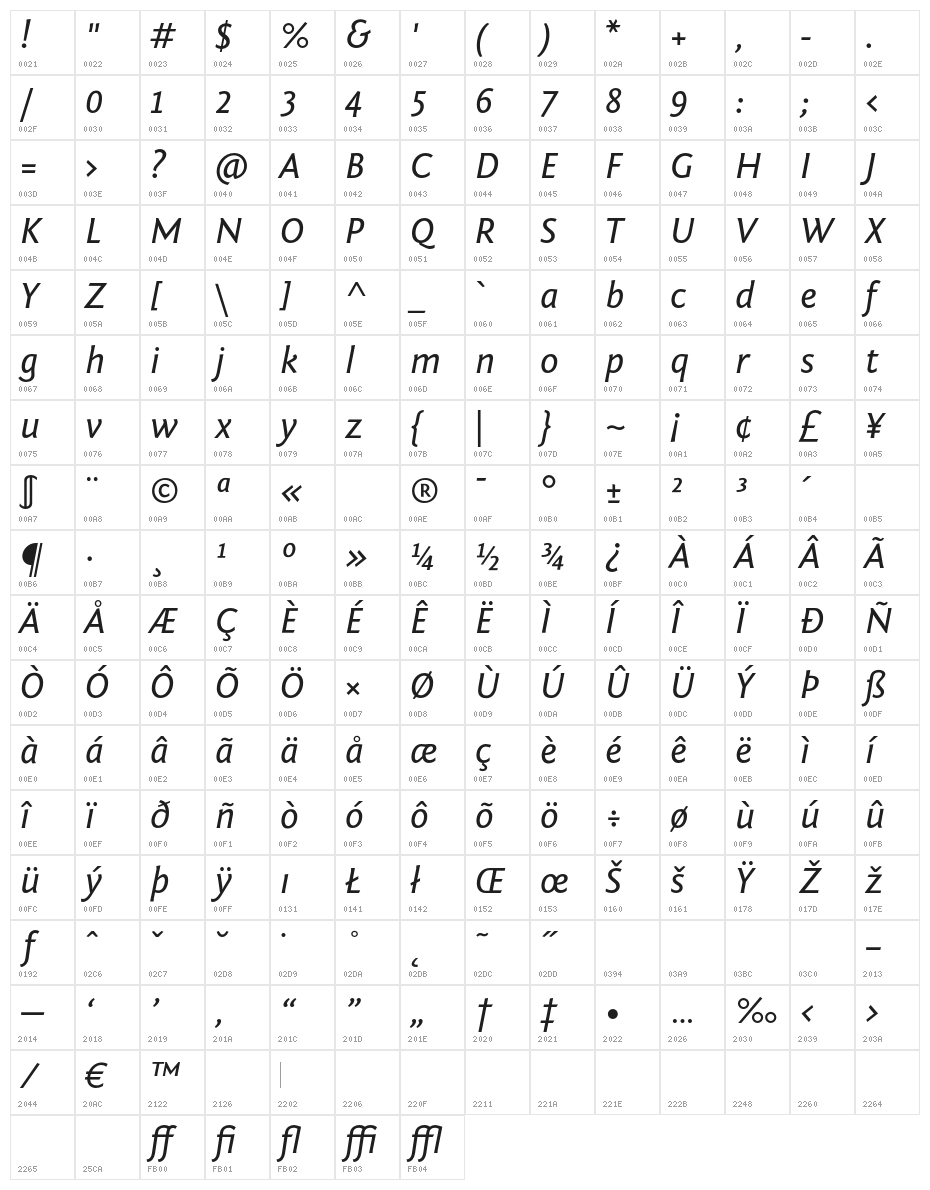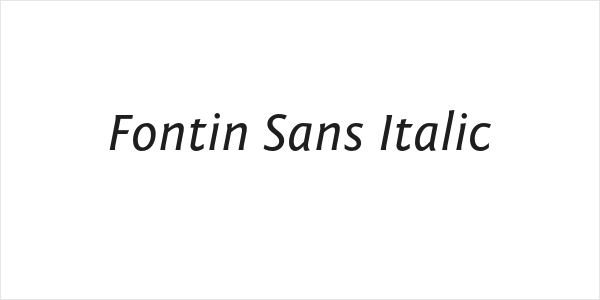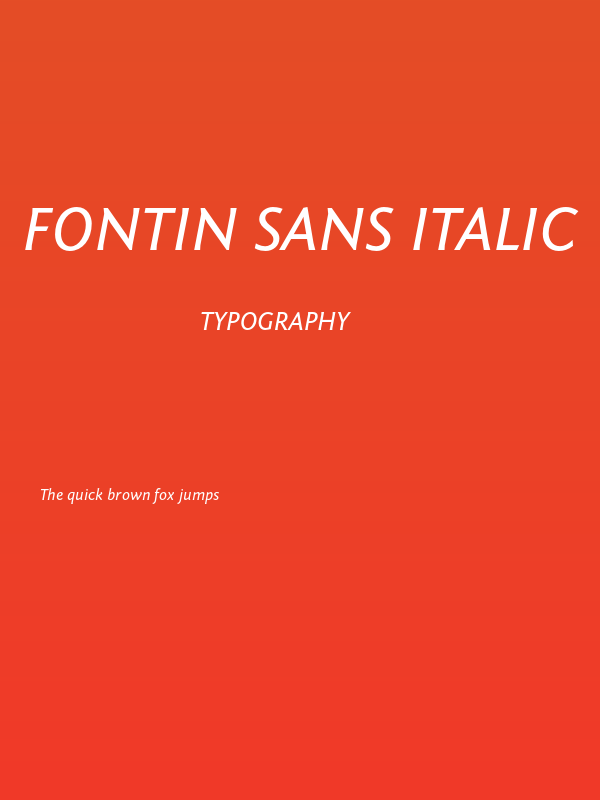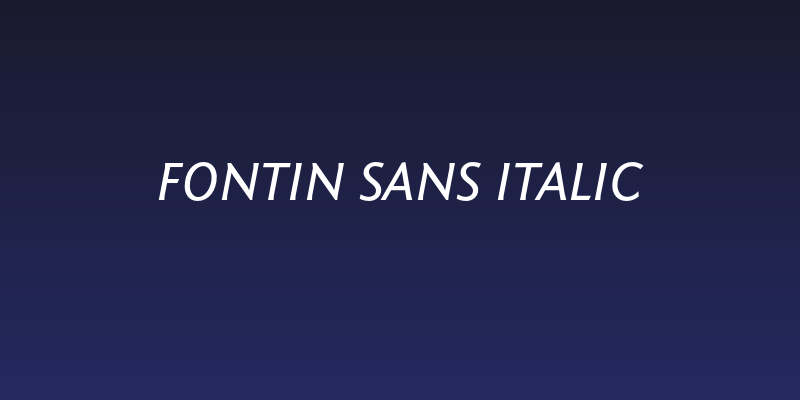
Fontin Sans Italic Font
Fontin Sans Italic Description
This font features a clean and elegant sans-serif style with a subtle italic slant, providing a sense of motion and sophistication. The characters are well-proportioned, with a slight emphasis on the curves, giving it a modern and approachable feel. The uppercase letters maintain a consistent height, while the lowercase letters offer a smooth transition with their rounded forms. The numerals are clear and distinct, ensuring readability. Special characters are designed to complement the overall aesthetic, making this font versatile for various applications.
| Proposed Projects | Ideal for branding, editorial design, websites, and advertising where a modern and sophisticated look is desired. |